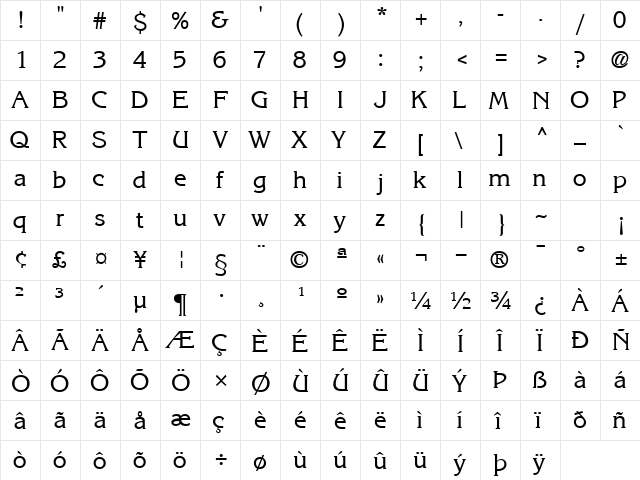
IntuitionSSK Regular
Design Context for IntuitionSSK Typeface
IntuitionSSK offers clean, dependable letterforms without strong stylistic allegiance, making it a practical choice for designers who need flexibility.
Pro Tip: Use IntuitionSSK in both headline and body roles to test its range before committing to a single application.